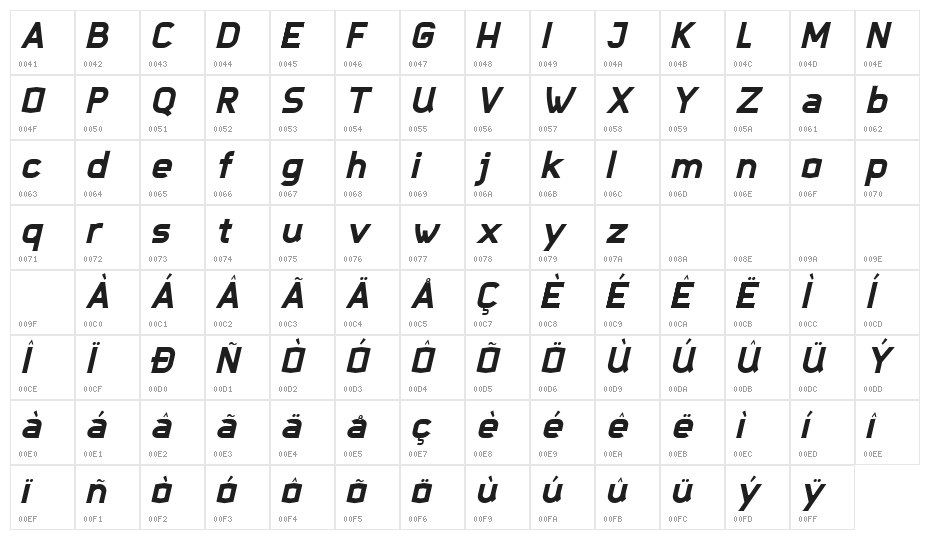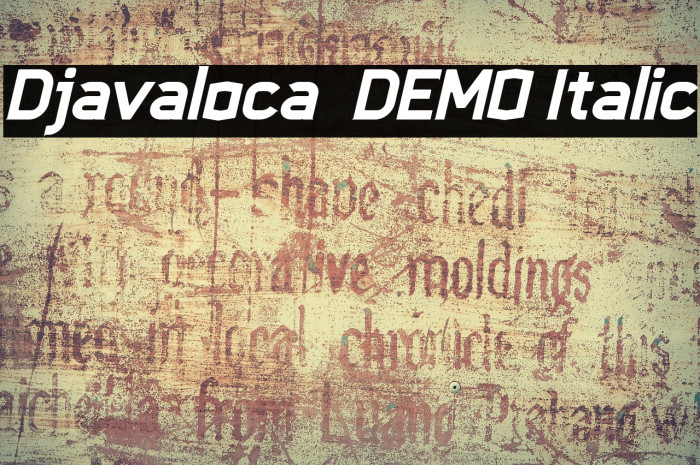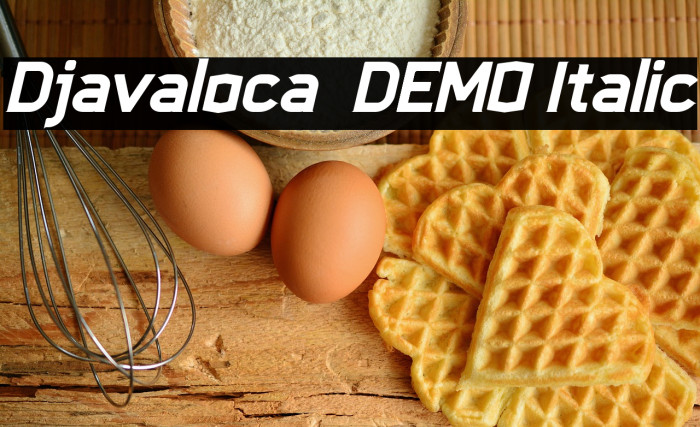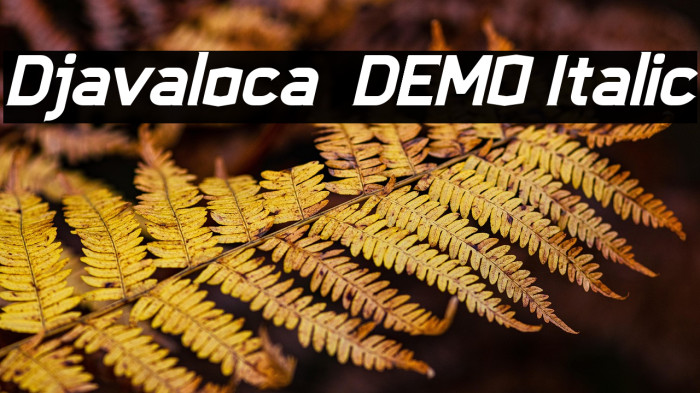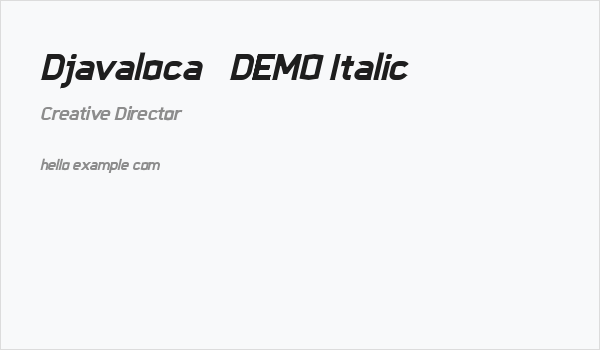
Djavaloca - DEMO Italic Font
Djavaloca - DEMO Italic Description
This font features a dynamic and modern italic style, characterized by its slanted and angular letterforms. The uppercase and lowercase letters maintain a consistent slant, giving the typeface a sense of motion and energy. The strokes are bold and uniform, providing a strong visual impact. The characters are slightly condensed, enhancing the sleek and streamlined appearance. This font is well-suited for projects that require a contemporary and assertive look, such as sports branding, dynamic posters, or modern editorial design.
| Proposed Projects | Ideal for sports branding, dynamic posters, modern editorial design, and energetic advertisements. |